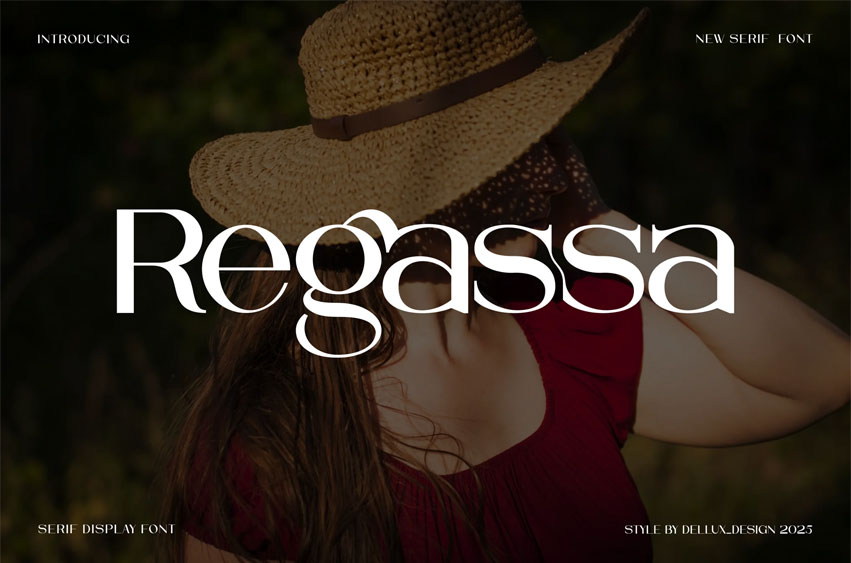
Regassa Font
Regassa Font is a unique font.
It can make it easier to convey the message in your design. Use for awesome displays, labeling, movie scenes, posters, movie titles, gigs, album covers, logos, and much more.